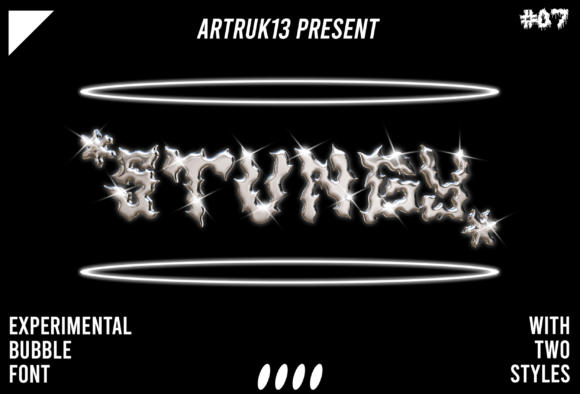
Journey into a realm of darkness and intrigue with Stungy Font, the ultimate display font for metal stamping. This experimental bubble font, masterfully crafted by Artruk13, seamlessly blends playful curves with rugged edges, resulting in an electrifying aesthetic perfect for capturing attention and making a statement.
Immerse yourself in the horror vibes exuded by this captivating font, a font that will transport you to a world of mystery and intrigue. Whether you're a musician seeking to create a distinctive band logo or an entrepreneur looking to leave an unforgettable mark on your brand, Stungy Font is your weapon of choice. Unleash your creativity and push the boundaries of design with this remarkable font.
Picture the possibilities: album covers that speak volumes, t-shirts that ooze attitude, posters that ignite emotions, and social media graphics that demand attention. The versatility of Stungy Font knows no bounds, allowing you to craft designs that resonate with your unique vision.
Don't settle for ordinary fonts that blend into the background. Embrace the power of Stungy Font and watch as your creations transform into captivating works of art. This font is your gateway to a world of boundless creativity, a world where your imagination reigns supreme.